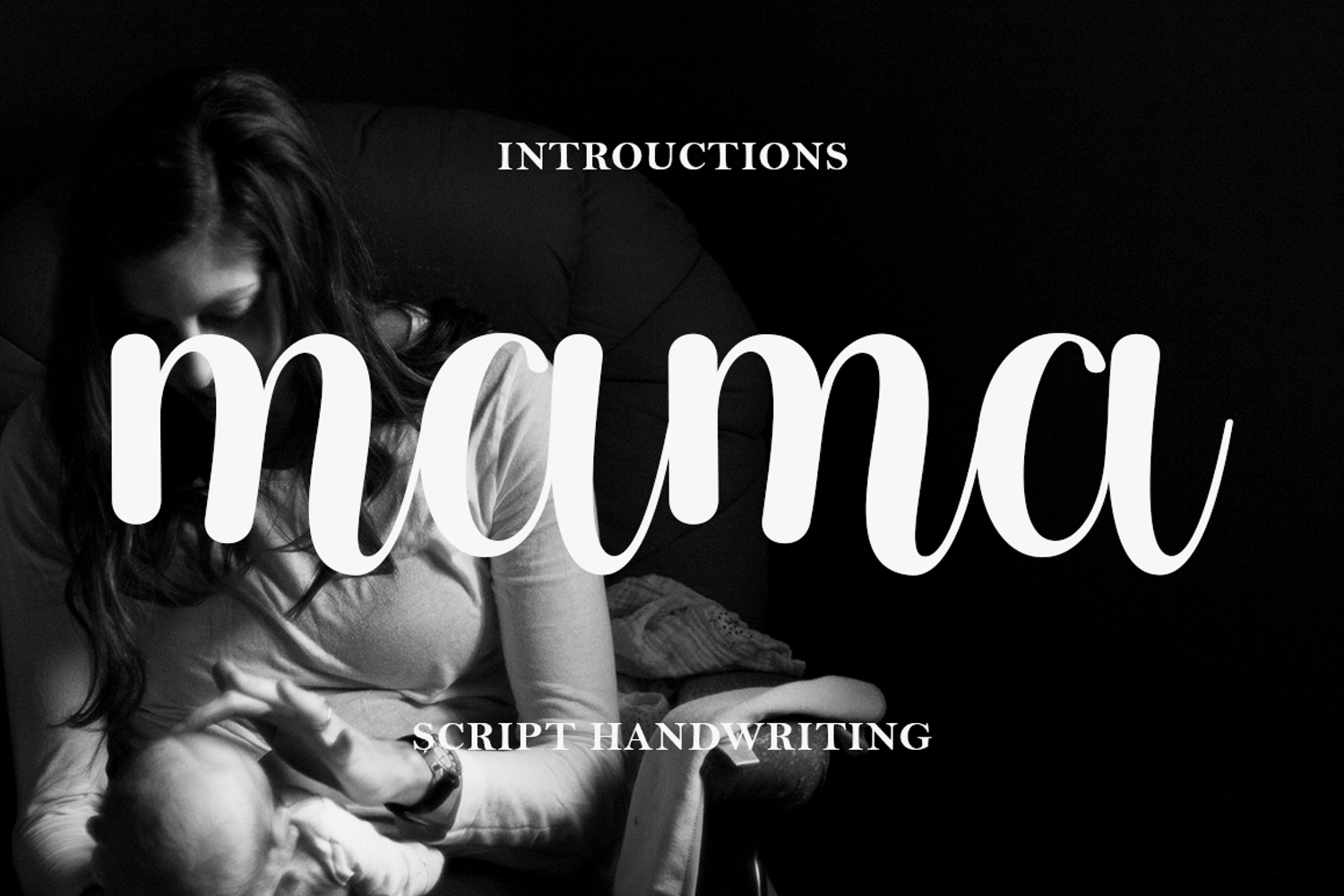
Mama
Mama is a handwritten font that features exquisite character transformations, a kind of classic decorative copperplate script with a modern twist, meticulously designed for an elegant style.
Mama is appealing because it's delicate, clean, feminine, sensual, glamorous, simple, and highly legible, thanks to its many luxurious letter connections. This classic style is perfect for various formal applications such as invitations, labels, restaurant menus, logos, fashion, makeup, stationery, novels, magazines, books, greeting/wedding cards, packaging, labels, or any type of advertising needs.